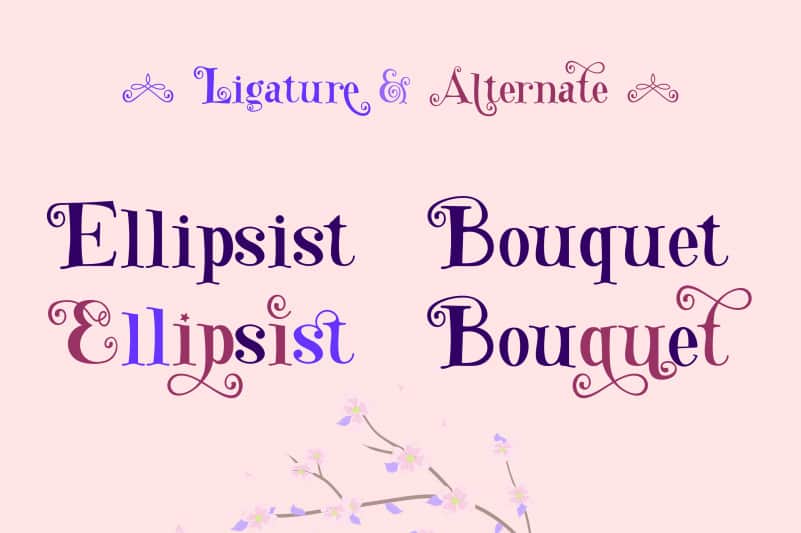
Secret Admirer Serif Font is a serif typeface that is decorated with simple vintage ornamentation in order. So that it adds beautiful and varied. There are alternative letters in high letters and some vowels.